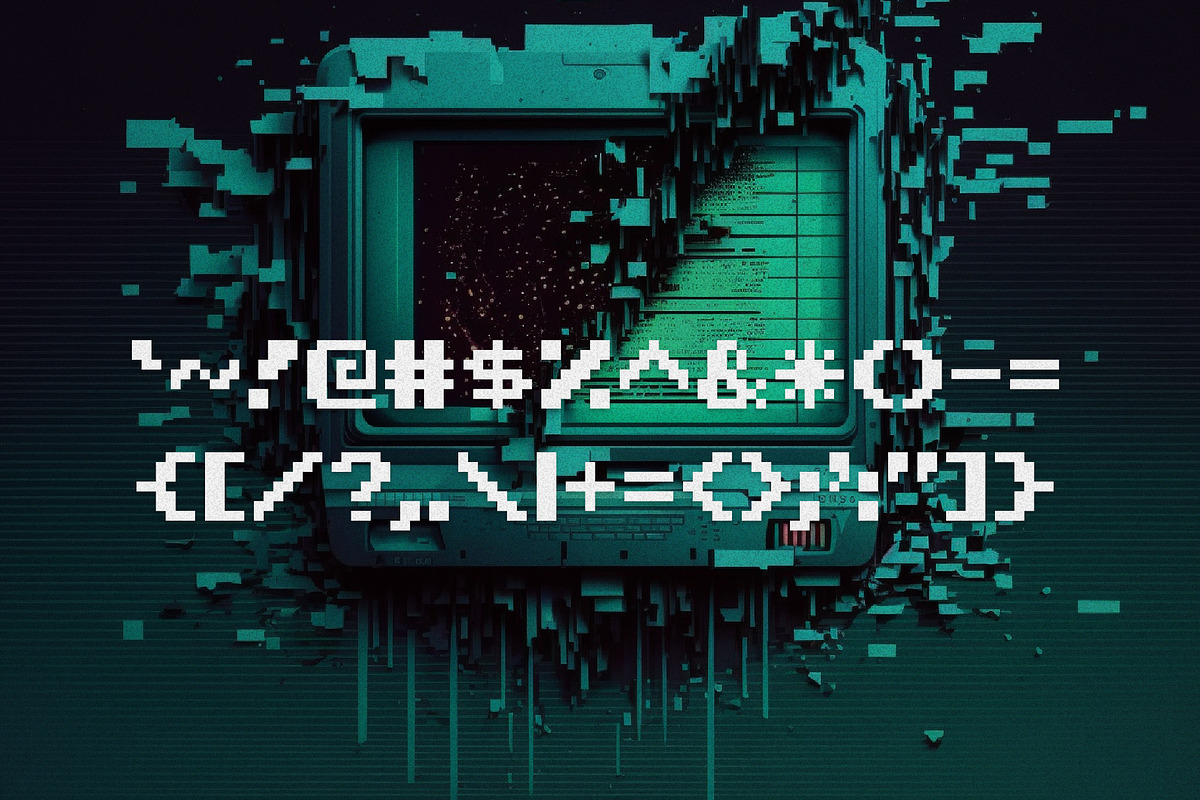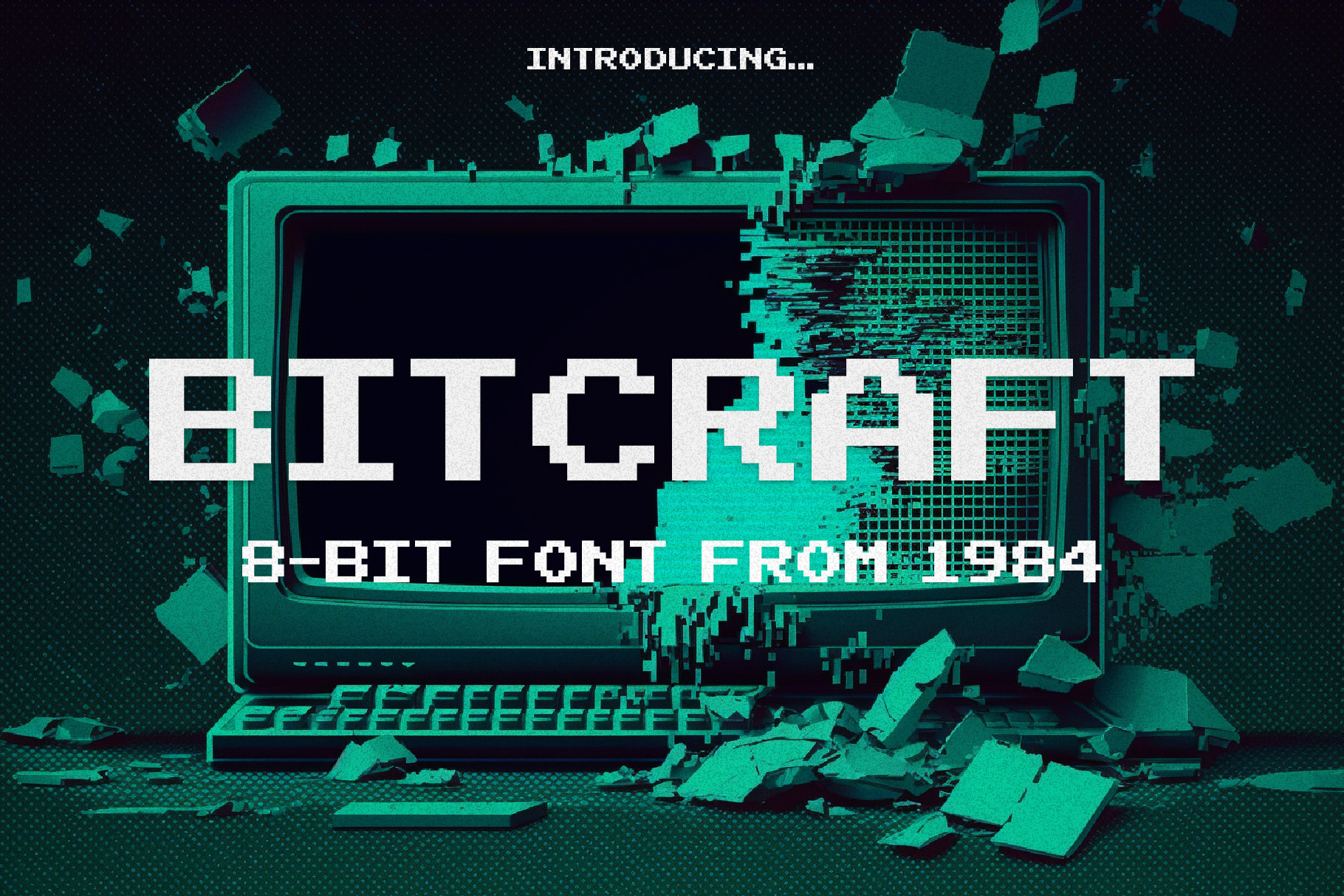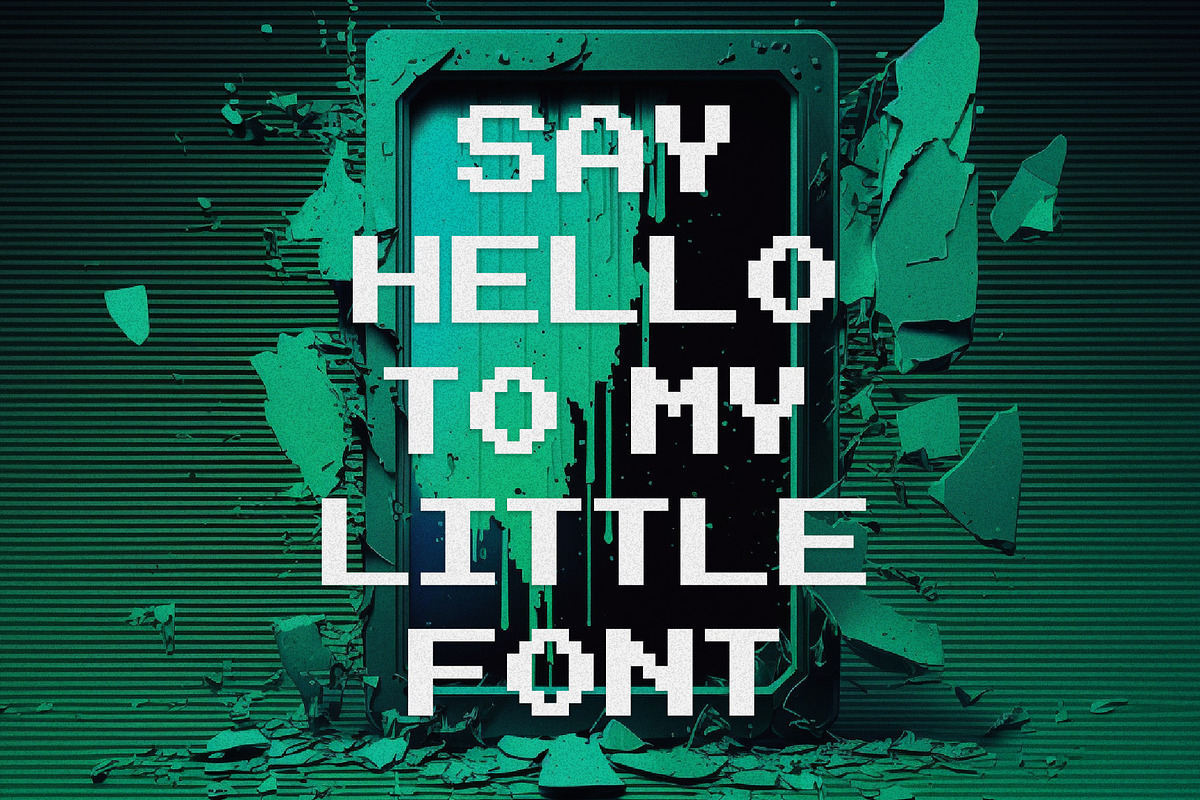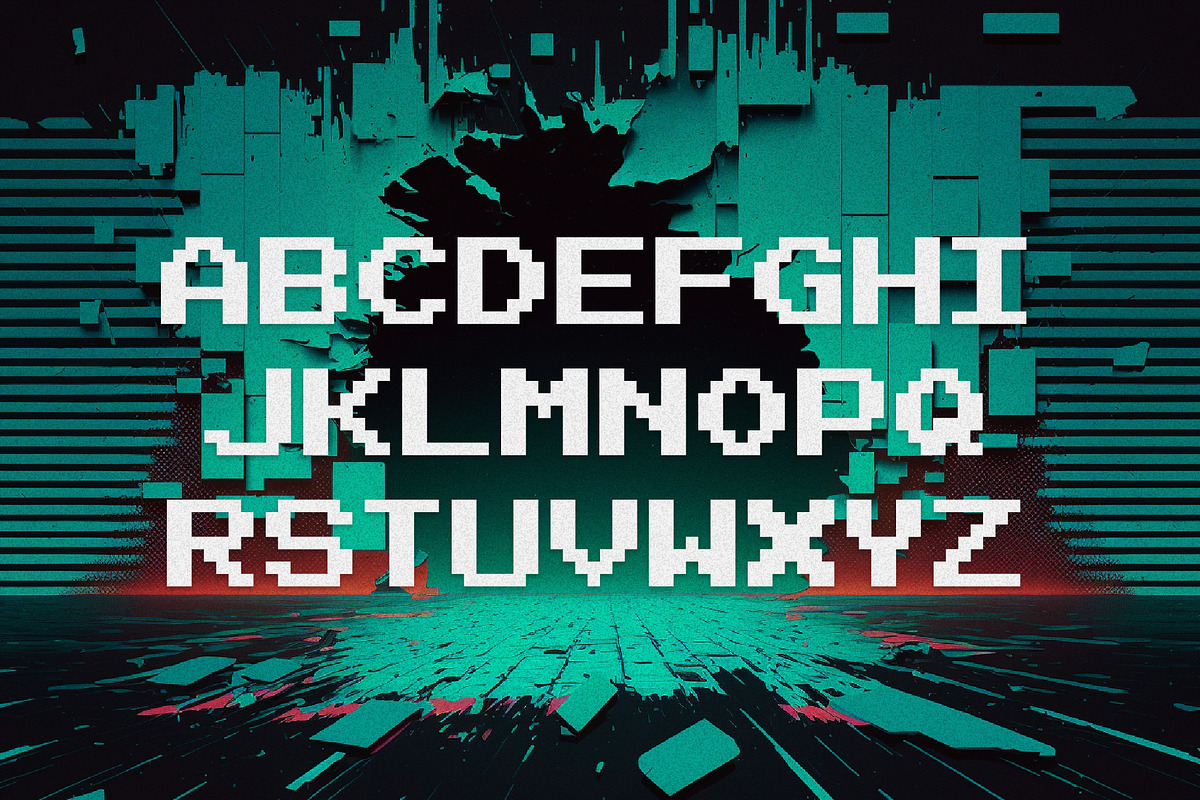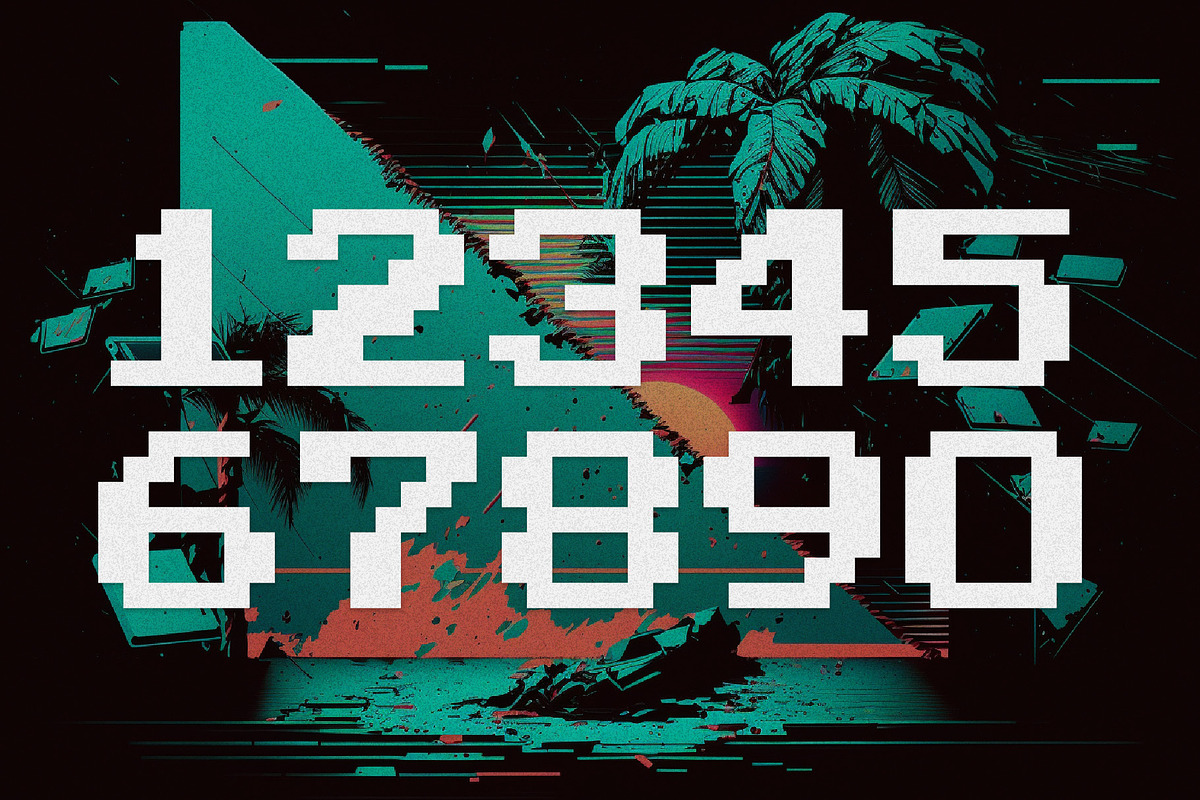
Bitcraft - Computer Pixel Font
Bitcraft is an 8bit pixel font inspired by the 1980s. The all-caps font is designed with a retro look and feel, reminiscent of the classic video games and computer interfaces of that era. The font is suitable for a wide range of design projects like illustrations, posters, logos, apparel, and web design. With its nostalgic charm and versatile functionality, Bitcraft is the perfect 8bit pixel font for designers looking to add a touch of vintage flair to their work.